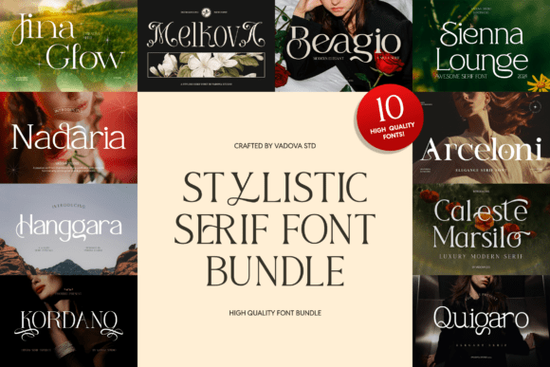
When you need typography that feels both classic and highly expressive, the Stylistic Serif Font bundle gives you exactly what you need. This collection focuses on decorative serif typefaces that bring a refined, artistic touch to your projects. Instead of relying on plain text, these letterforms use graceful curves and distinctive details to make your branding or packaging stand out. Whether you are designing for a beauty brand, creating wedding invitations, or working on luxury product labels, having a versatile set of ornamental serifs in your toolkit makes a noticeable difference.
What makes these serif typefaces different from standard options?
Standard typefaces often lack the personality needed for high-end visual projects. This bundle bridges the gap between traditional serif foundations and modern decorative touches. You get expressive letterforms that feel luxurious without being overly complicated to read. For small business owners and print-on-demand sellers, this means your text can carry the same premium feel as the actual product you are selling. If you are exploring other options and want to compare styles, you might also want to look at a collection of decorative serif styles to see how different ornamental details can completely change the mood of a layout.
Which projects work best with ornamental serif lettering?
The right typography sets the tone before the customer even reads the words. Because these fonts feature elegant curves and artistic charm, they are ideal for specific use cases where visual impact matters most. They work beautifully for:
- Wedding stationery: Adding a romantic, timeless feel to invitations, menus, and seating charts.
- Beauty and fashion branding: Creating logos and packaging that look expensive, refined, and trustworthy.
- Editorial layouts: Designing magazine headers, book covers, or blog titles that need a sophisticated voice.
- Boutique product labels: Giving artisanal goods, candles, or skincare lines a premium, handcrafted aesthetic.
How do you pair these fonts without cluttering the design?
A common mistake when using highly detailed typography is pairing it with another busy font. To keep your design clean and readable, use these expressive serifs strictly for your main headings, logos, or short quotes. Pair them with a simple, clean sans-serif or a very basic traditional serif for your longer body text. This contrast ensures your decorative letters remain the focal point without overwhelming the reader. When browsing for complementary typefaces, checking out a clean serif alternative can help you find the perfect balance for your body copy.
Are these fonts easy to use for beginners and hobbyists?
Quick Checklist for Using Decorative Serifs
- Test the sizing: Ornamental details can disappear at very small sizes, so test your text before finalizing your design.
- Use tracking: Slightly increase the letter spacing on all-caps headings to let the intricate curves breathe.
- Keep body text simple: Let the decorative font be the star of the show to maintain a professional look.